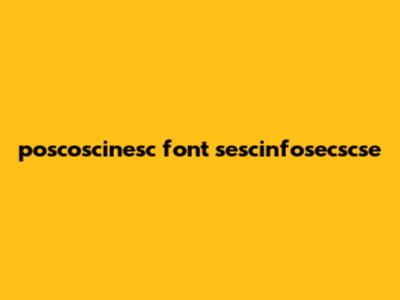
- A Specific Foundry or Designer: Maybe "poscoscinesc" is a term used internally by a font foundry or a particular designer to categorize their work. It could be their special way of saying, "Hey, this font has a certain vibe that only we create!"
- A Project-Based Naming Convention: Imagine a design project where the team decided to name all the fonts used with a specific prefix or suffix to keep things organized. "Poscoscinesc" could be that unique identifier.
- A Unique Typographical Style: Perhaps poscoscinesc fonts share common characteristics, like a specific stroke thickness, serif style, or overall aesthetic. Think of it as a secret code for fonts that have a similar look and feel.
- A Misspelling or Typo: It's also possible that "poscoscinesc" is a misspelling of another, more common term in the font world. Typos happen to the best of us, right?
sescinfosecscseis simply a randomly generated string of characters used as a unique identifier for a specific purpose. Think of it as a digital fingerprint. - Font Selection: When choosing fonts for a project, consider the overall theme, aesthetic, and target audience. Look for fonts that align with the message you're trying to convey and that are easy to read and understand.
Let's dive into the world of poscoscinesc fonts and how they relate to sescinfosecscse. While the terms might seem a bit cryptic at first, we'll break them down and explore their potential connections. Understanding these elements can be super useful, especially if you're involved in web design, typography, or any field where visual communication is key. So, stick around as we unpack this intriguing topic!
Understanding Poscoscinesc Fonts
When we talk about poscoscinesc fonts, we're essentially delving into a specific category or style of fonts. Now, poscoscinesc isn't a widely recognized term in the font world, so it might refer to a niche classification, a proprietary naming convention, or even a typographical style developed for a particular project. It's kind of like when you stumble upon a band name you've never heard before – it could be super unique or just very underground!
To really understand what defines a poscoscinesc font, we'd need more context. Here are a few possibilities:
To get to the bottom of this, we might need to do some detective work. Searching font databases, design forums, and typography blogs could reveal more information. Who knows, we might even uncover a hidden gem in the world of fonts!
Exploring sescinfosecscse
Now, let's turn our attention to sescinfosecscse. Just like "poscoscinesc," this term doesn't immediately ring a bell in the typical tech or design lexicon. It appears to be a unique identifier, possibly related to a specific project, system, or organization. It's like encountering a secret password – intriguing, but you need the context to unlock its meaning!
Here are a few potential interpretations of what sescinfosecscse could represent:
To figure out the true meaning of sescinfosecscse, we'd need to investigate the context in which it's used. Looking at the surrounding code, documentation, or other relevant materials could provide valuable clues. It's like piecing together a puzzle to reveal the bigger picture.
The Connection Between Poscoscinesc Fonts and sescinfosecscse
So, how might poscoscinesc fonts and sescinfosecscse be connected? This is where things get really interesting! Without additional information, it's tough to say for sure, but we can explore some plausible scenarios.
Scenario 1: A Themed Project
Imagine a design project where sescinfosecscse is the project's unique identifier. The project might involve creating a website, application, or marketing campaign with a specific theme or aesthetic. In this case, poscoscinesc fonts could be the fonts chosen to align with that theme. For example, if sescinfosecscse represents a futuristic tech company, poscoscinesc fonts might be a set of sleek, modern fonts that evoke a sense of innovation and progress.